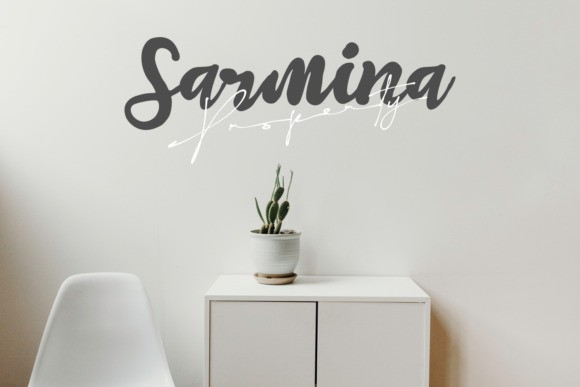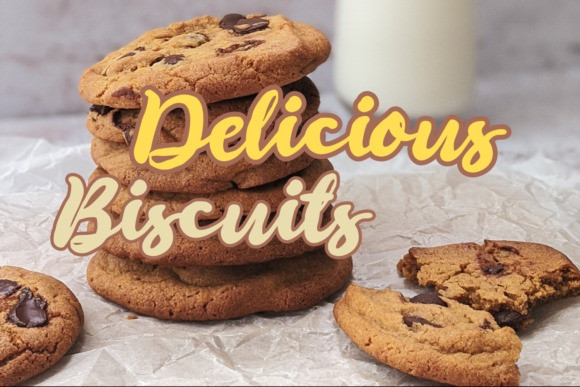
Blink Stones Brush Font
we just now launch our newest product called Blink Stones. This font is very suitable for logo, clothing, magazine, poster, quotes, and others. With natural touch, this font is the best choice for you.